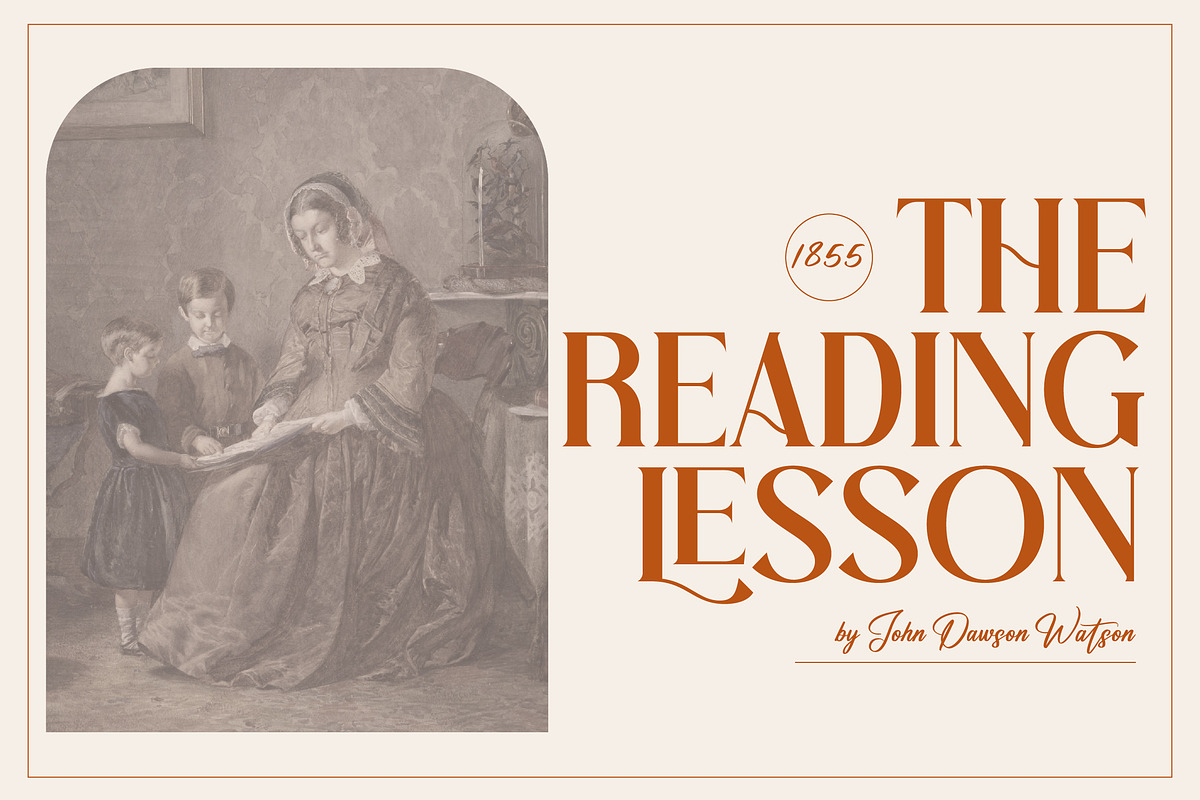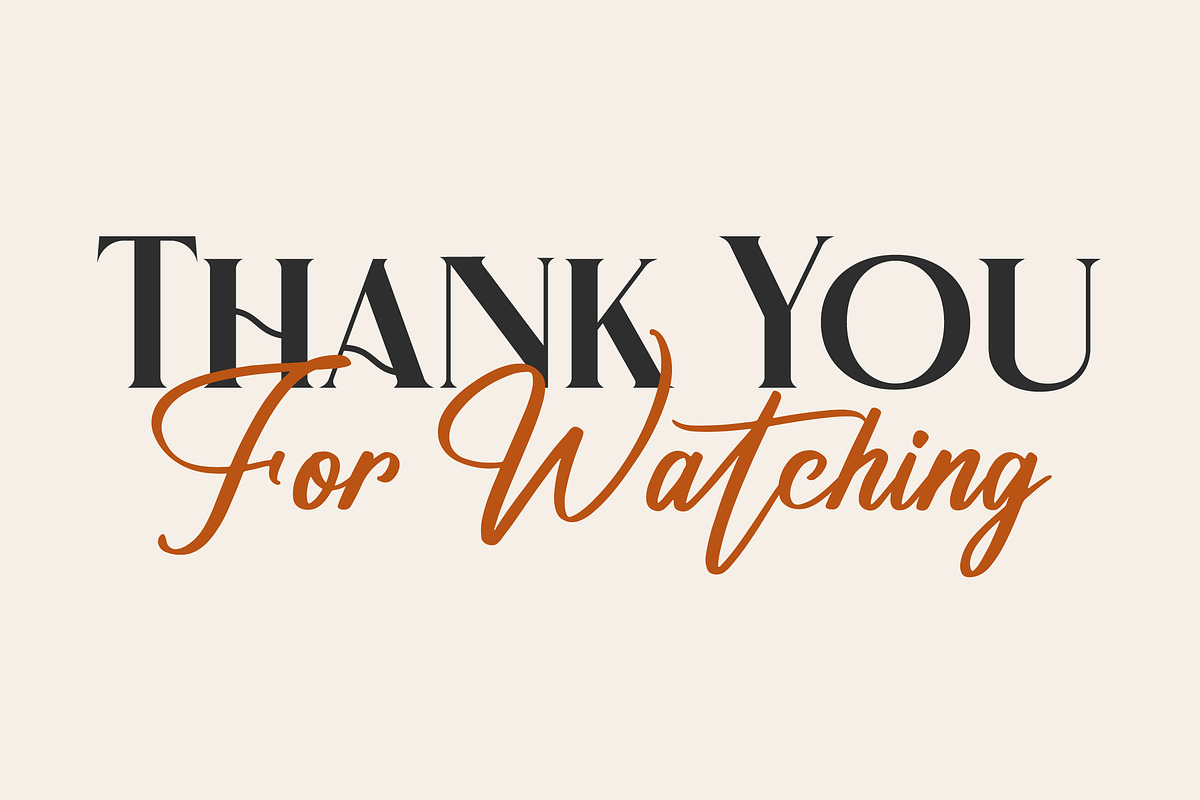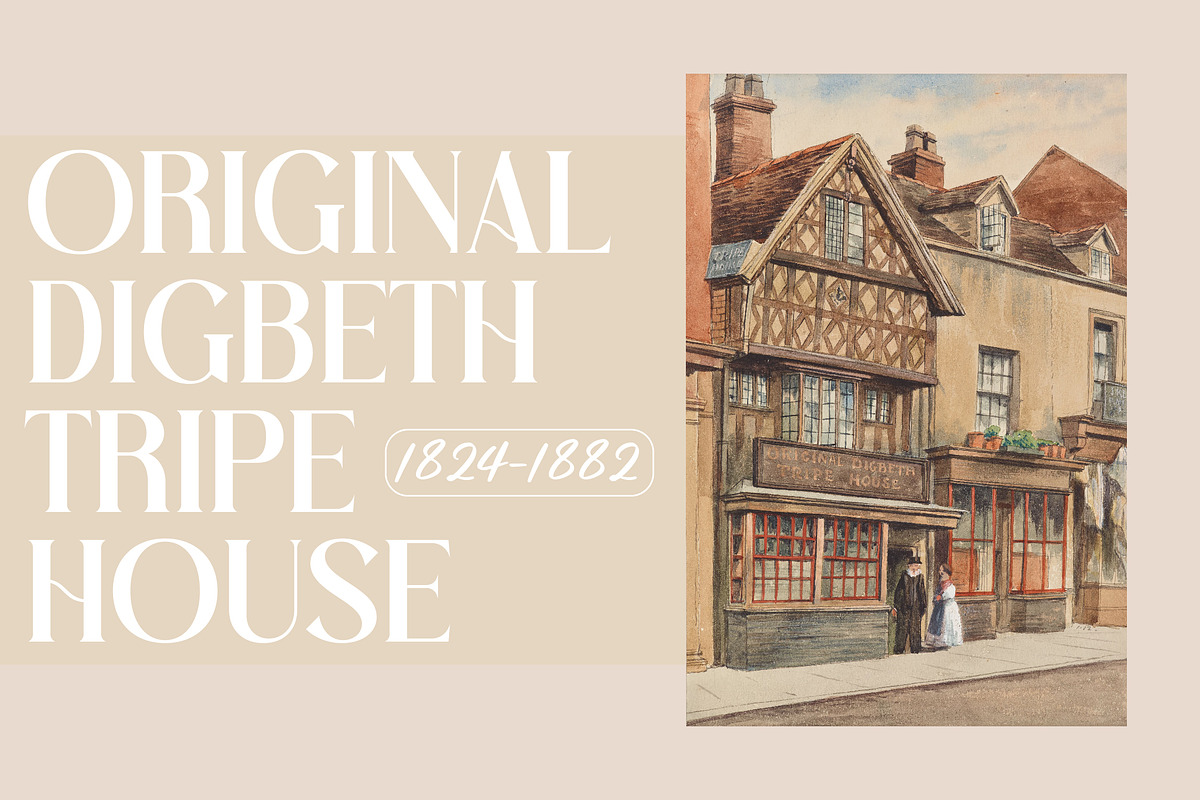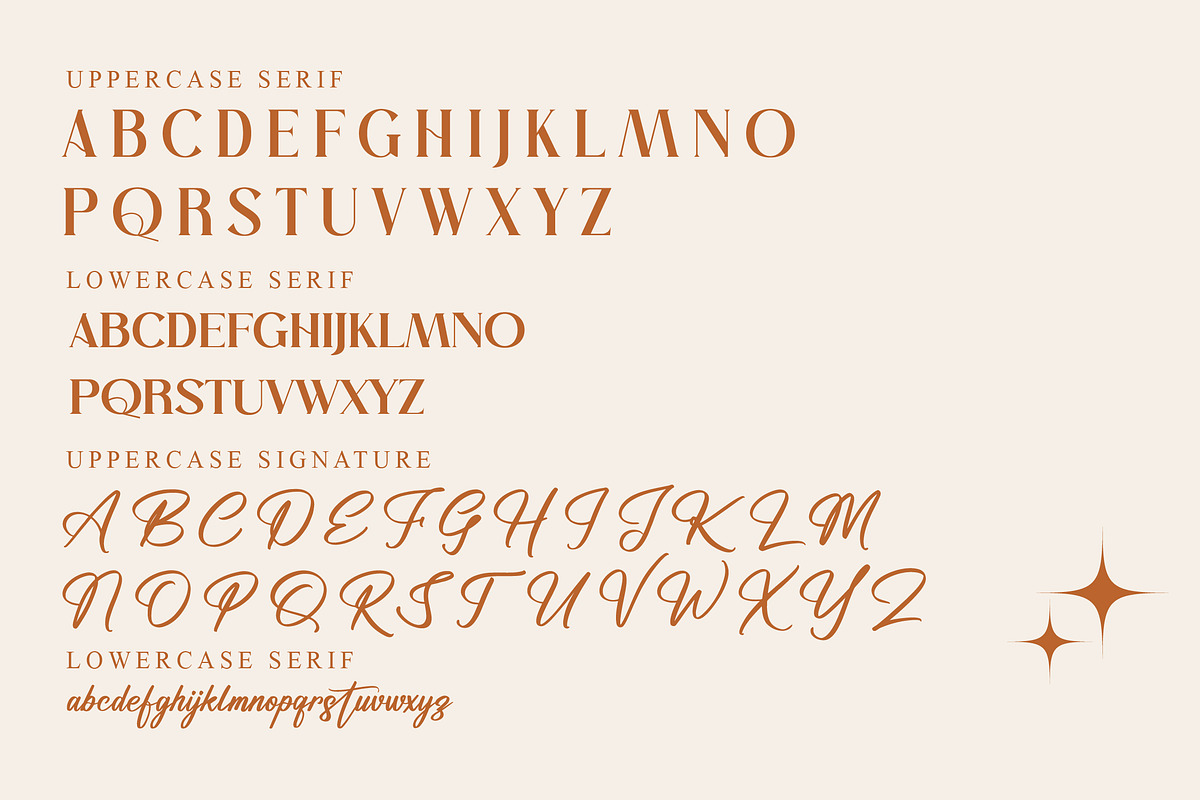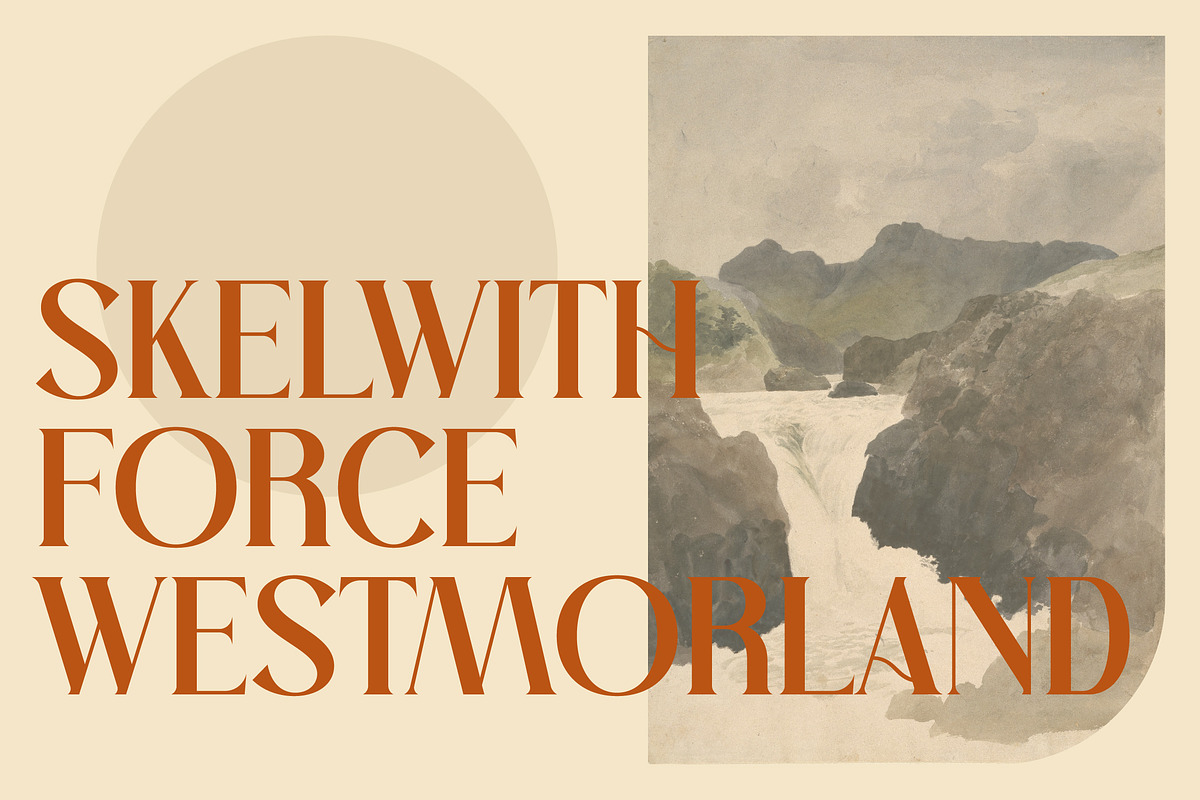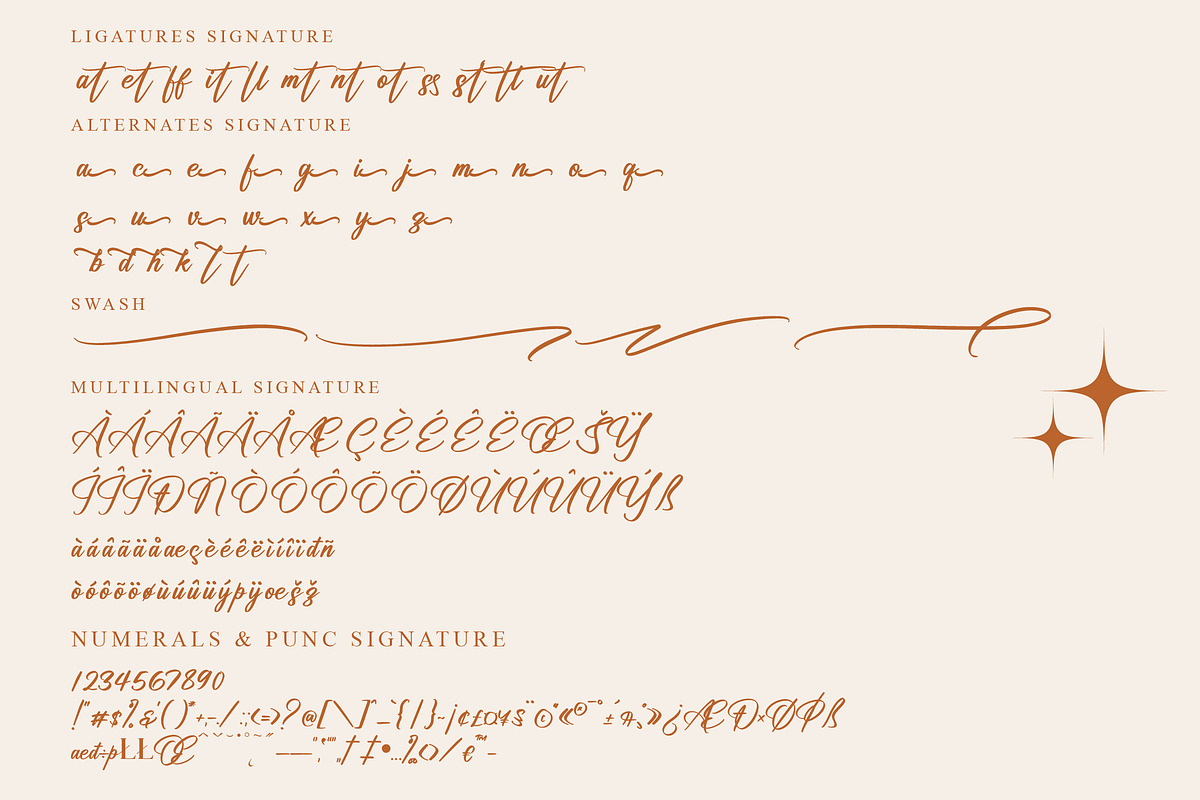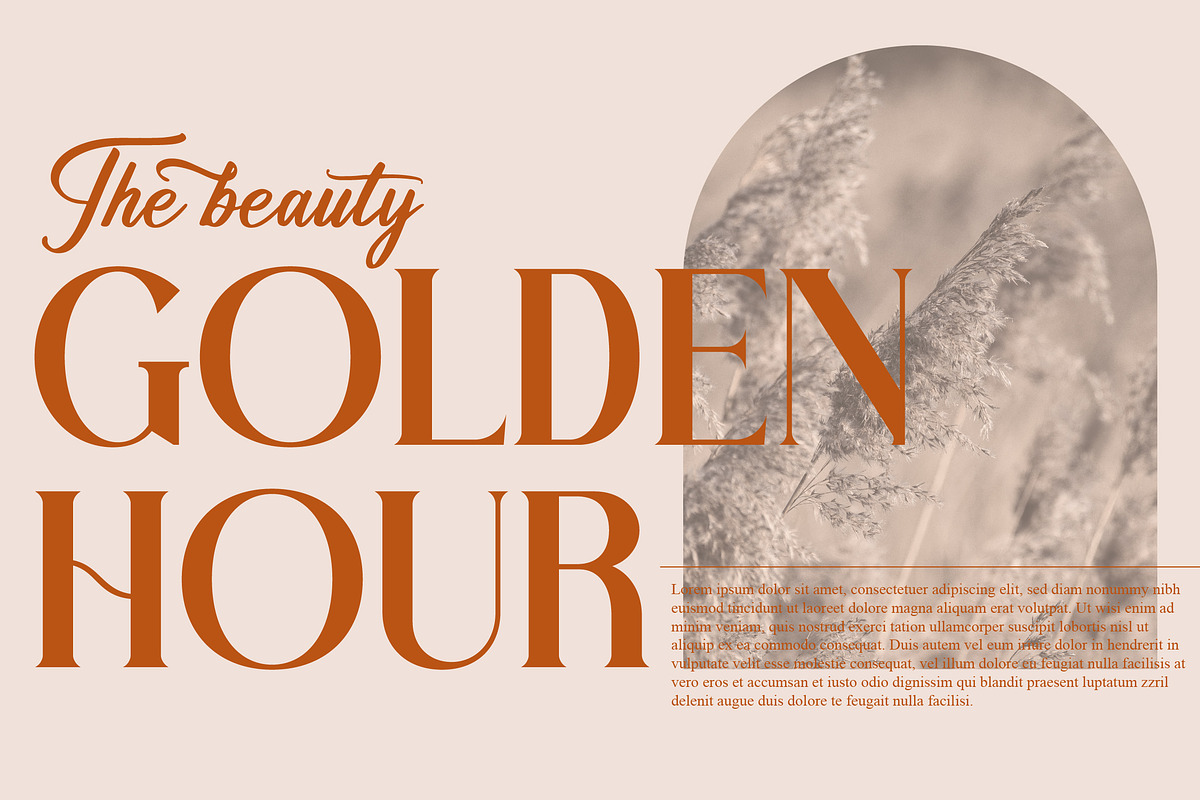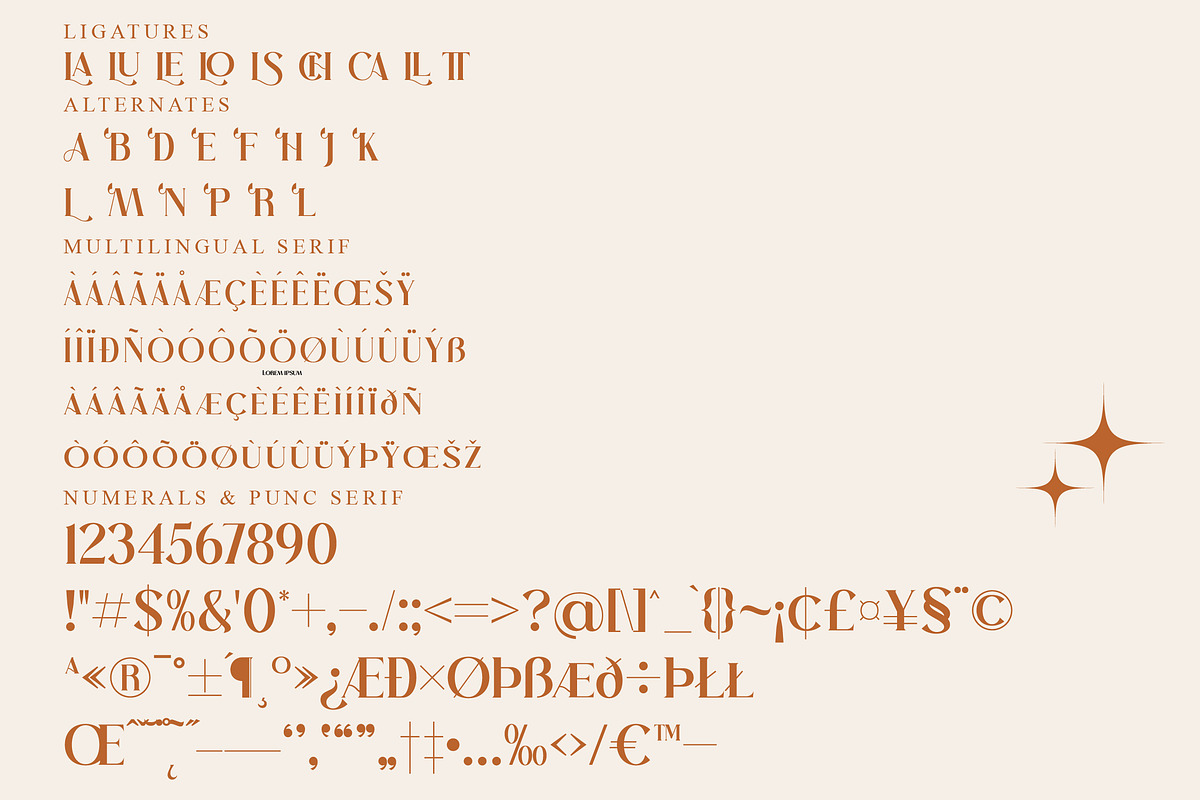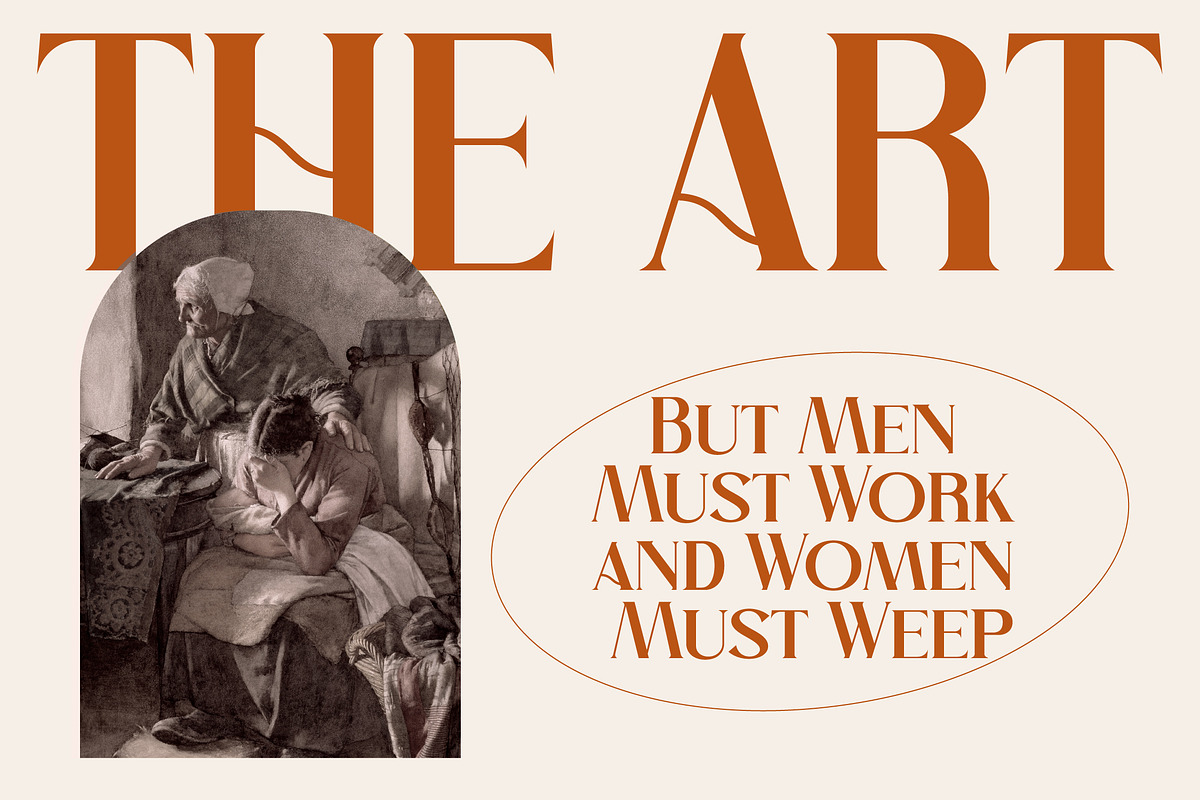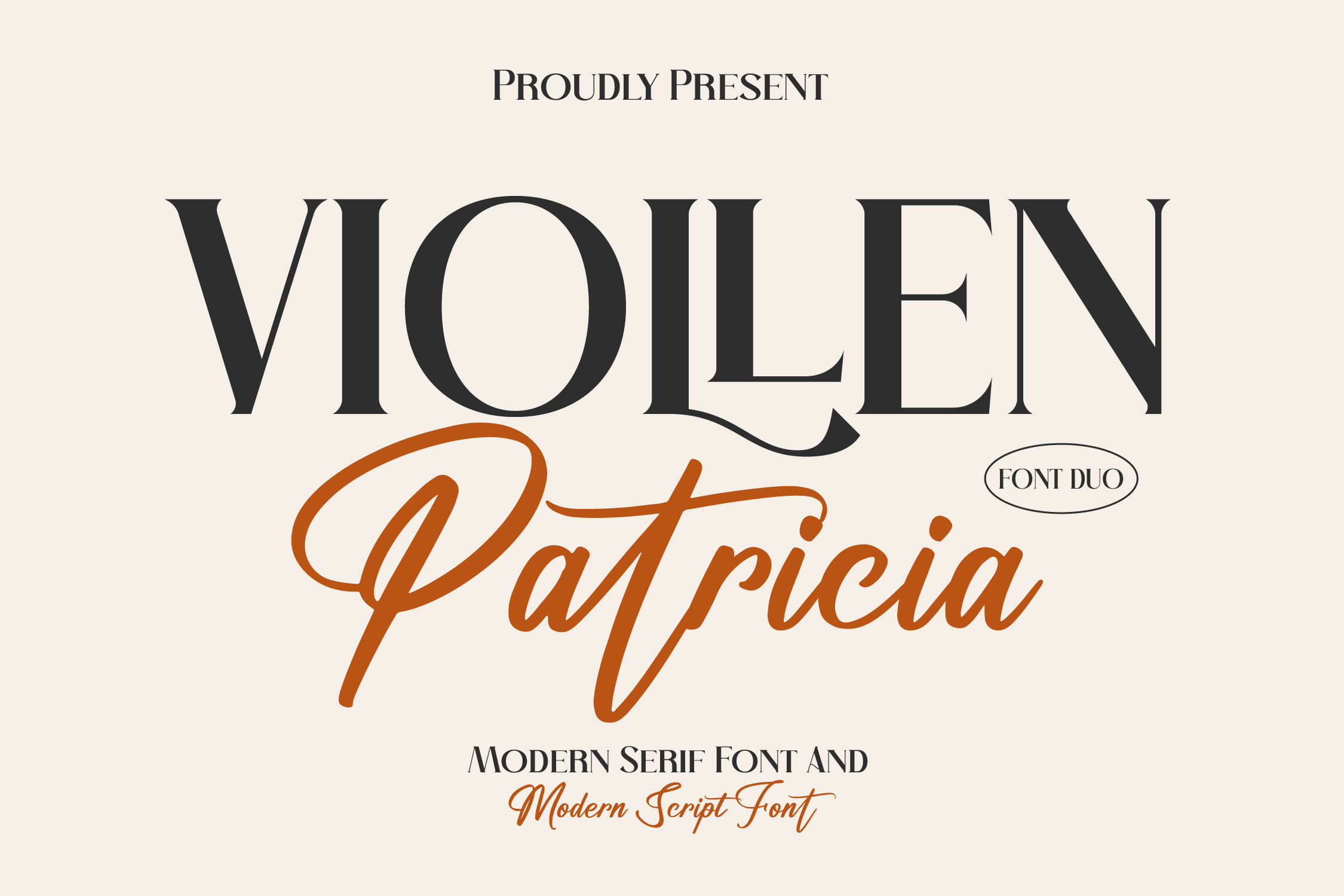
VIOLLEN Patricia Typeface Font Duo
Proudly present VIOLLEN Patricia Typeface Font Duo, created by Storytype, A serif modern and classic typeface that has own unique style & modern look. This typeface is perfect for an elegant & luxury logo, book or movie title design, fashion brand, magazine, clothes, lettering, quotes, and so much more.